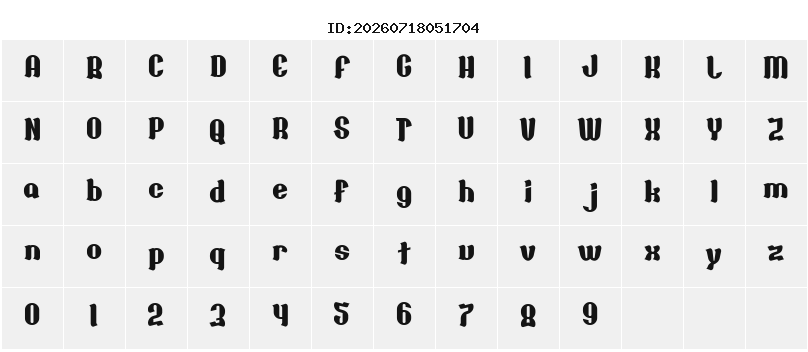
Chocolate__G Preview
• Font Name: Chocolate__G
• Font ID: Chocolate__G
• Full Font Name: Chocolate__G
• Version: Ver.1.1 Gomarice Font 2008/02/14
• PostScript Name: Chocolate__G
• Copyright: Goma Shin
About Chocolate__G.ttf
Chocolate__G.ttf is a modern, elegant sans-serif font designed for ultimate readability and visual harmony. Perfect for branding, headlines, web design, and print materials.